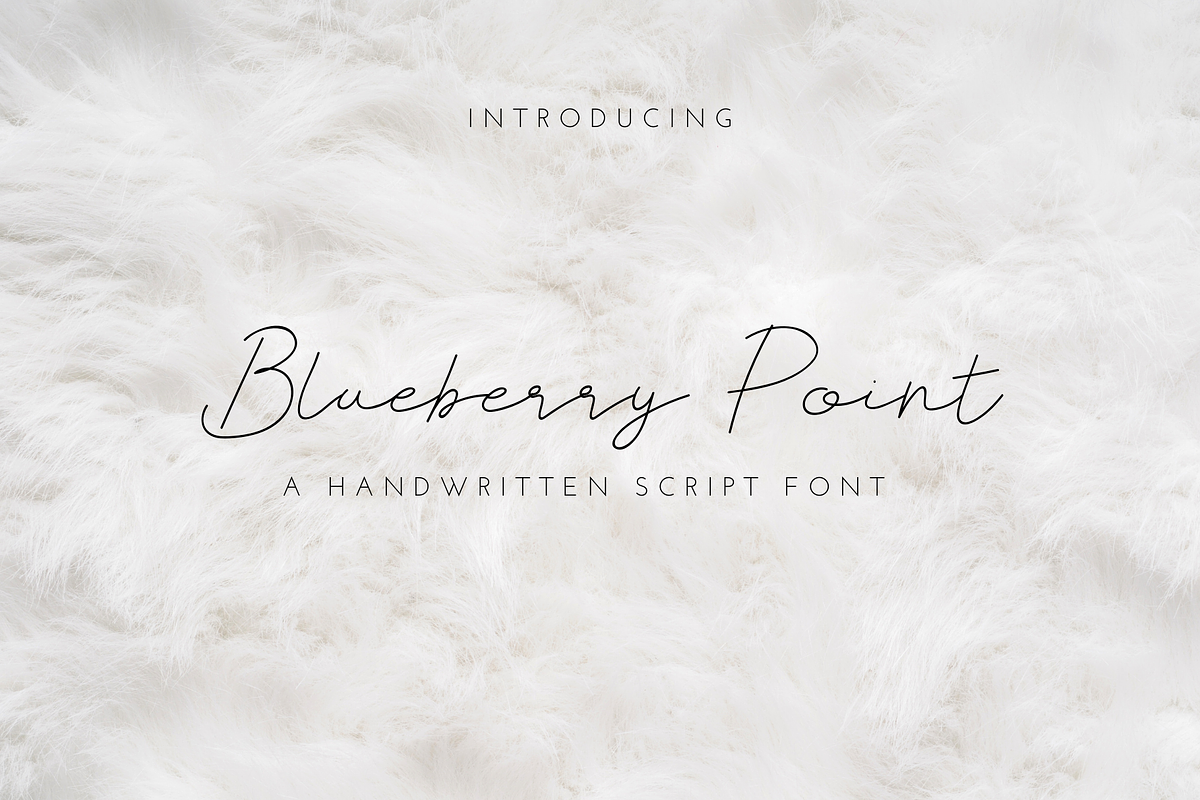
Blueberry Point Font Free Download is a sweet and whimsical typeface that combines charm with versatility. Perfect for playful branding, greeting cards, blog headers, packaging, and DIY projects, this font adds a friendly and approachable vibe to any design.
With its hand-drawn look and smooth curves, Blueberry Point evokes a sense of warmth and creativity. It’s an excellent choice for designers who want to inject a bit of personality into their work without sacrificing readability. The font includes a full set of characters, including alternates and ligatures, giving you the tools to make your designs truly unique.
If you're searching for a delightful script that’s both fun and functional, Blueberry Point Font Free Download is definitely worth exploring. Download the free demo today to test it out and unlock its full potential for your next project.